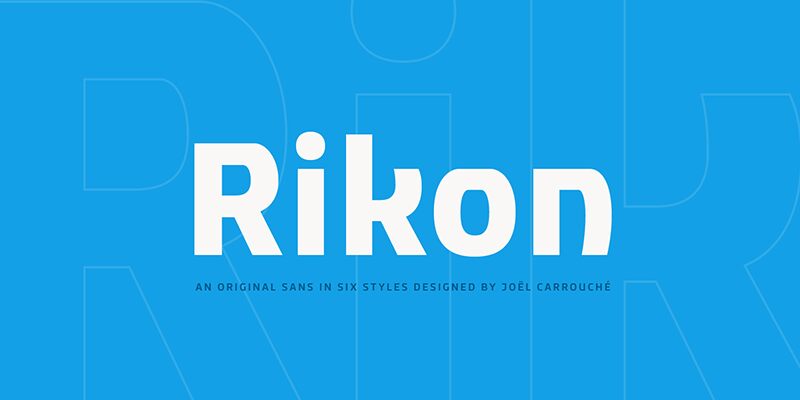
Rikon, the newest creation from JCfonts, is a stylish and versatile sans serif font that is perfect for projects that require a modern and clean look. With its semi-expanded width, Rikon adds a touch of sophistication to any design project, from websites to logos to marketing materials. This semi-bold font typeface is excellent for headlines and body text alike, making it an ideal choice for branding and advertising campaigns. Whether you're designing a sleek brochure or an eye-catching website, Rikon is sure to elevate your project to the next level.